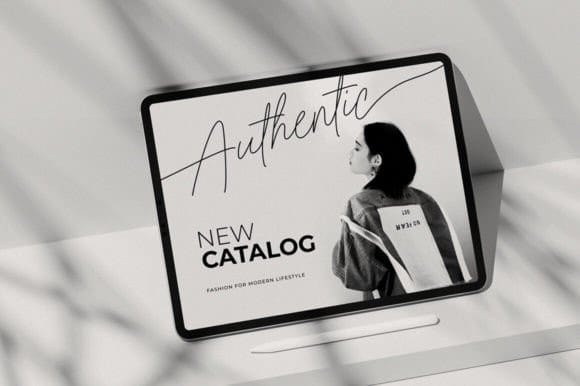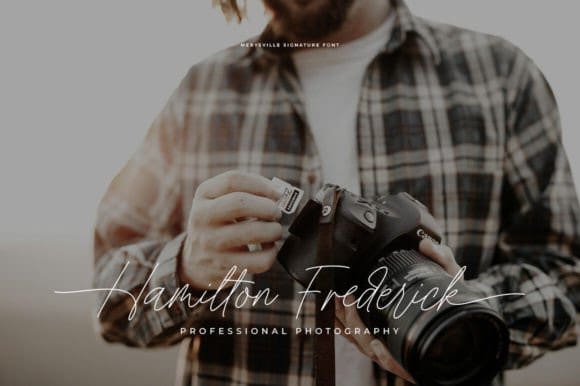
Merysville Handwritten Font
Merysville Handwritten Font is a modern signature font with tails, described by an elegant touch, perfect for your favorite projects. It looks stunning on wedding invitations, thank you cards, quotes, greeting cards, logos, branding, business cards, social media posts, magazines, marketing materials, and every other design that needs a handwritten touch. Fall in love with its incredibly distinct and timeless style and use it to create spectacular designs!